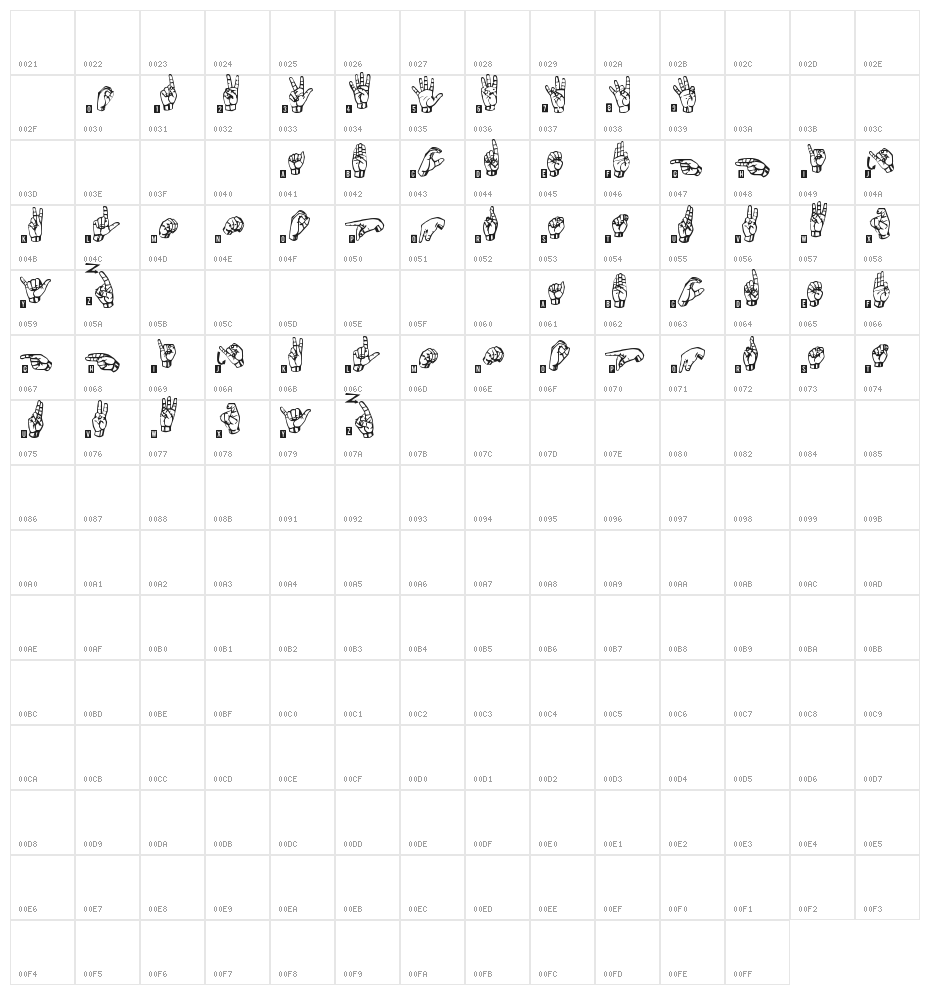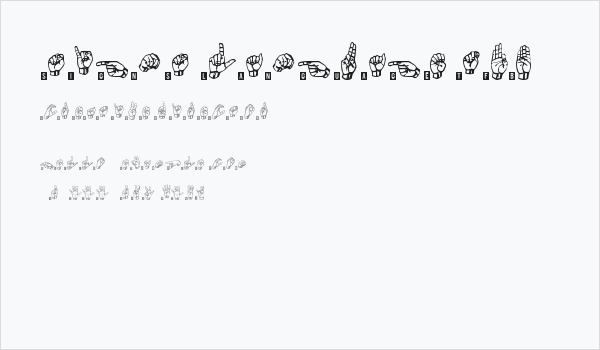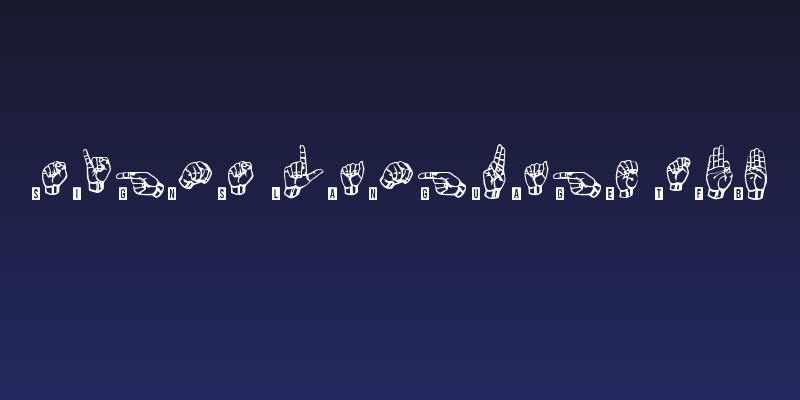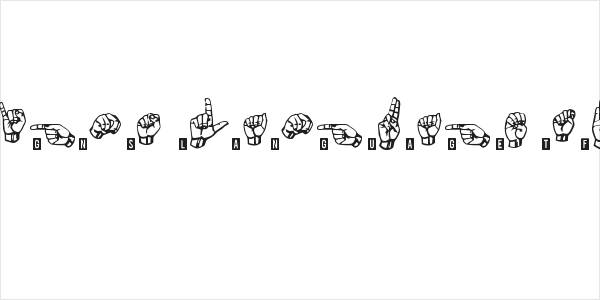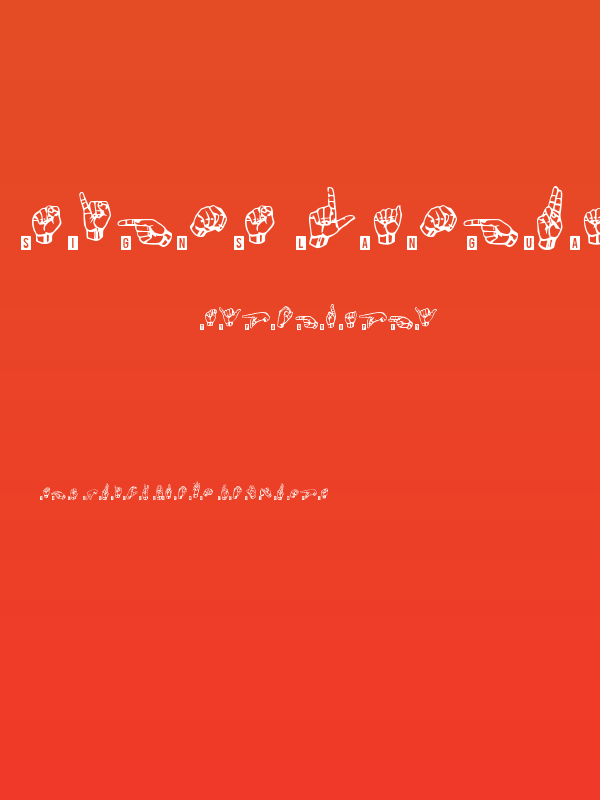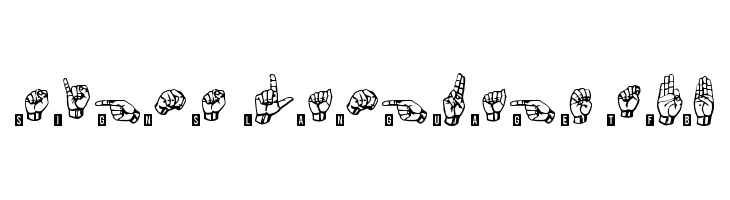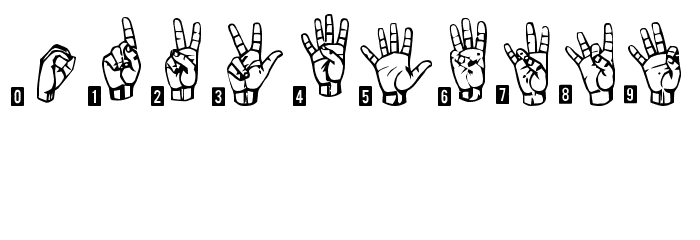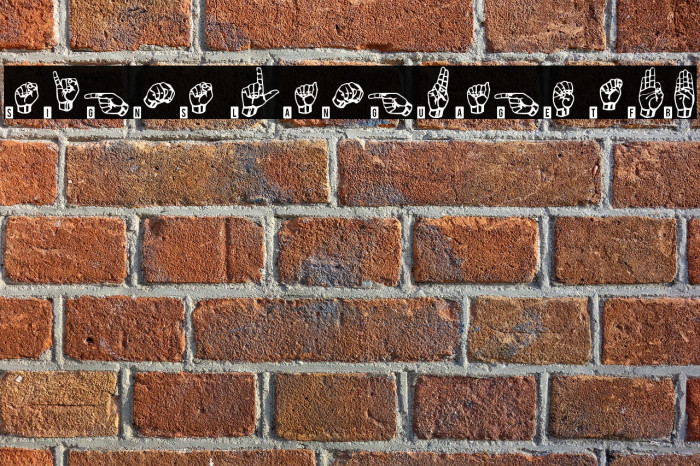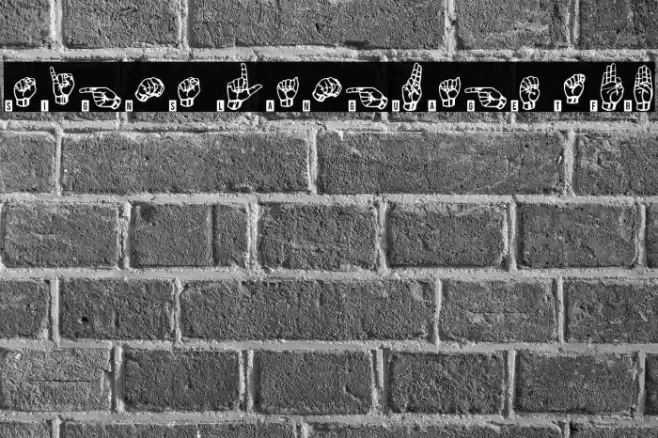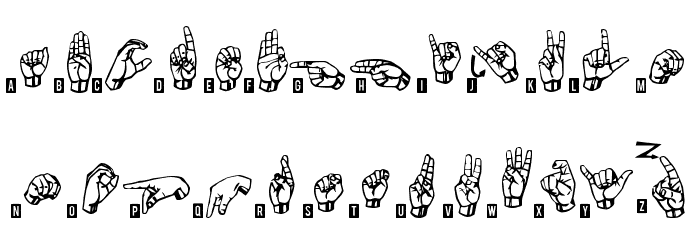
signs language tfb Font
This is a unique and visually engaging font that represents the alphabet and numbers through hand signs, resembling American Sign Language. Each character is depicted as a hand gesture, providing a distinctive and educational approach to typography. The design is clear and detailed, with each hand sign outlined in black for emphasis. This font is particularly suitable for projects that aim to promote inclusivity and awareness of sign language. The characters are uniformly styled, maintaining consistency across the set, and the use of bold outlines ensures that each gesture is easily recognizable.
| Use Case | Logos, Educational materials, Awareness campaigns |
| Proposed Projects | Educational materials, awareness campaigns, inclusive design projects, and creative posters. |